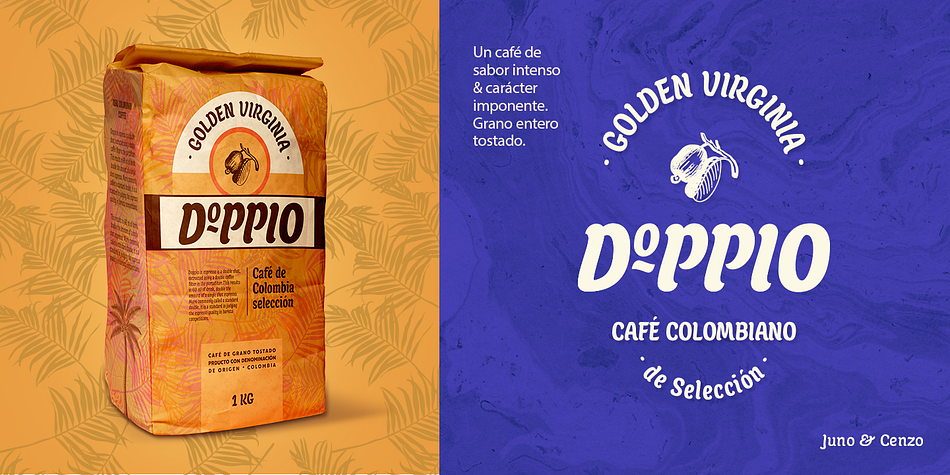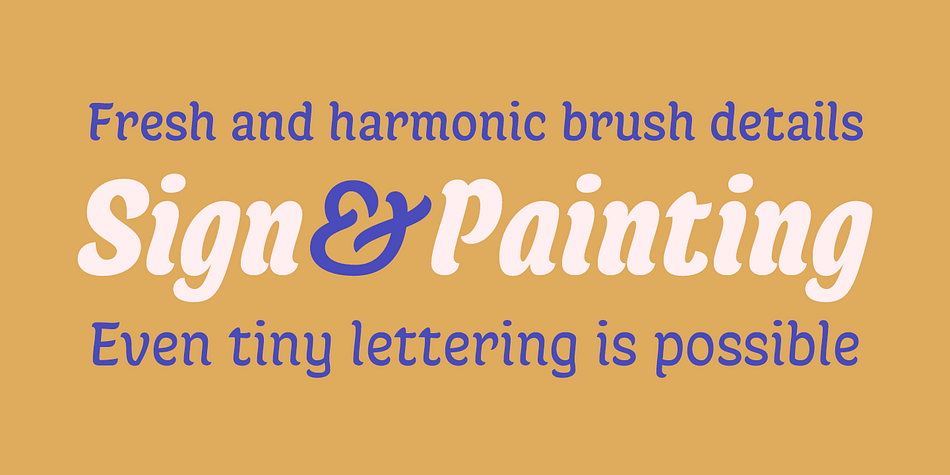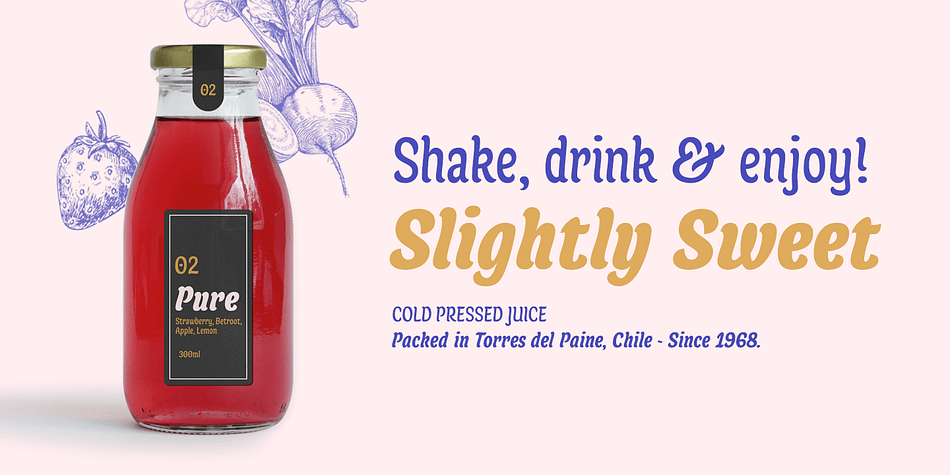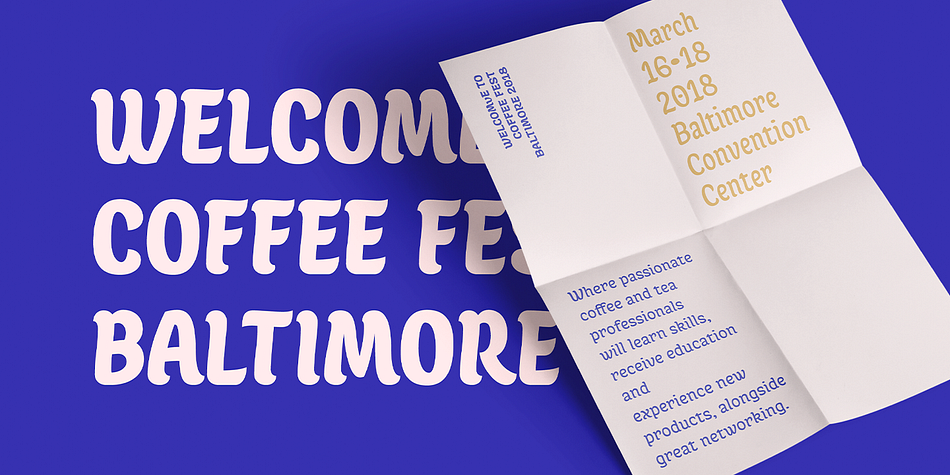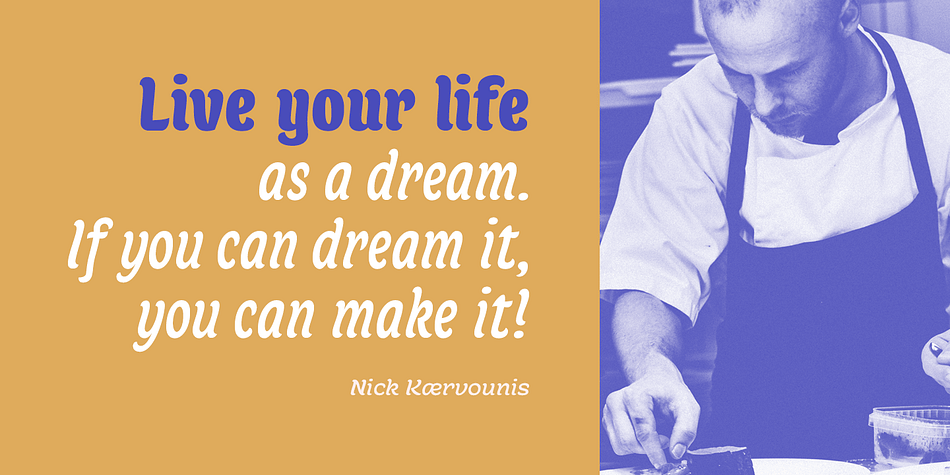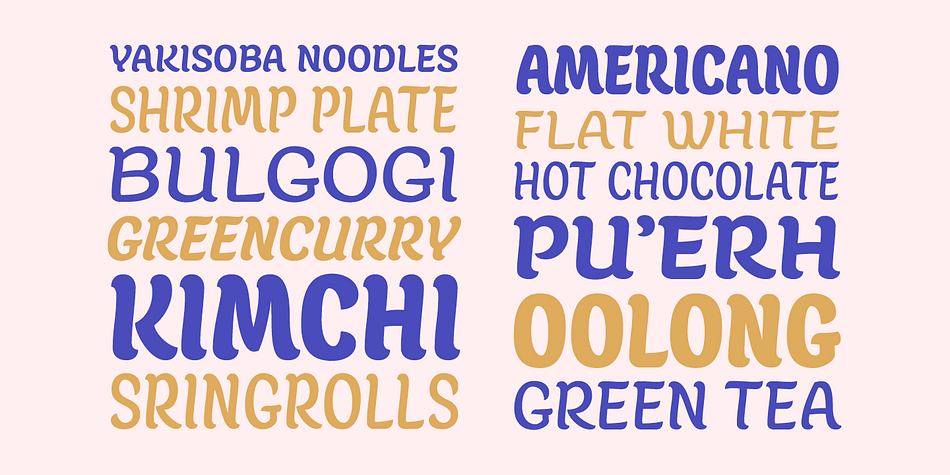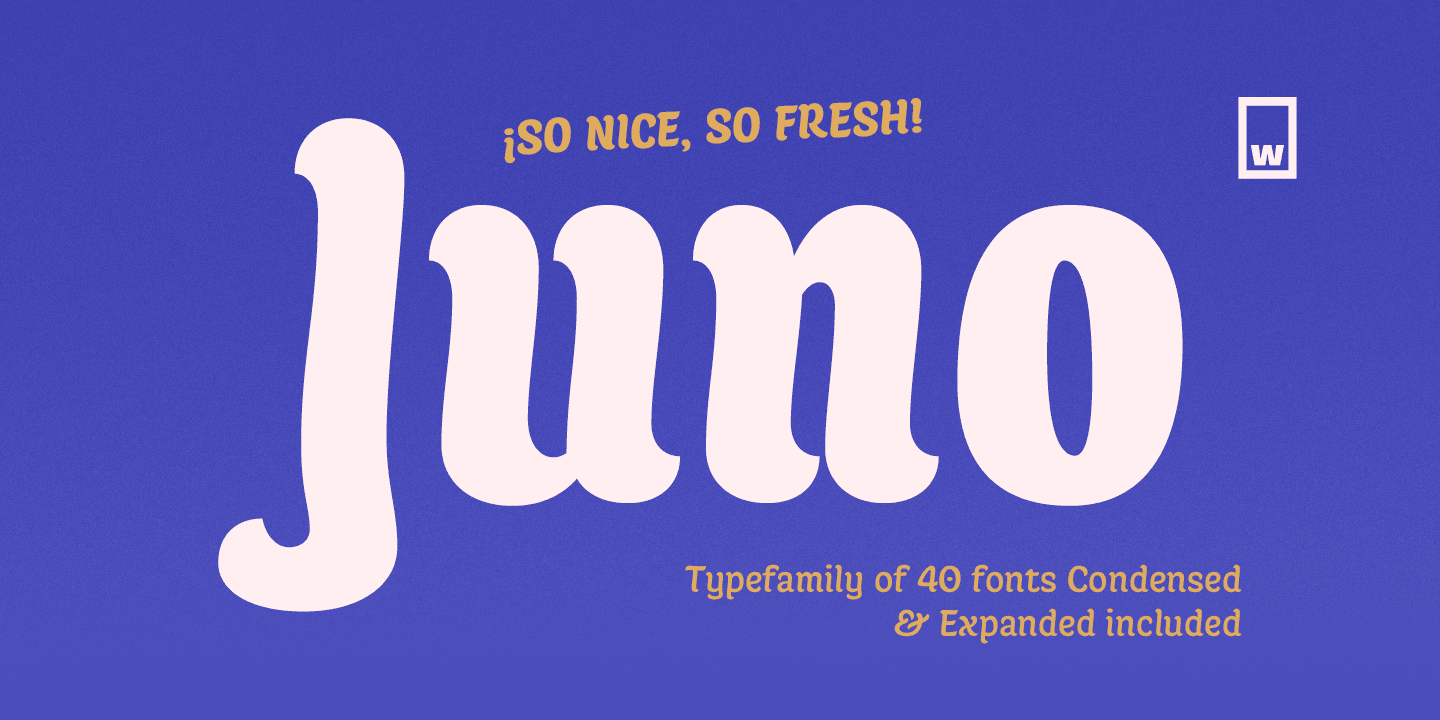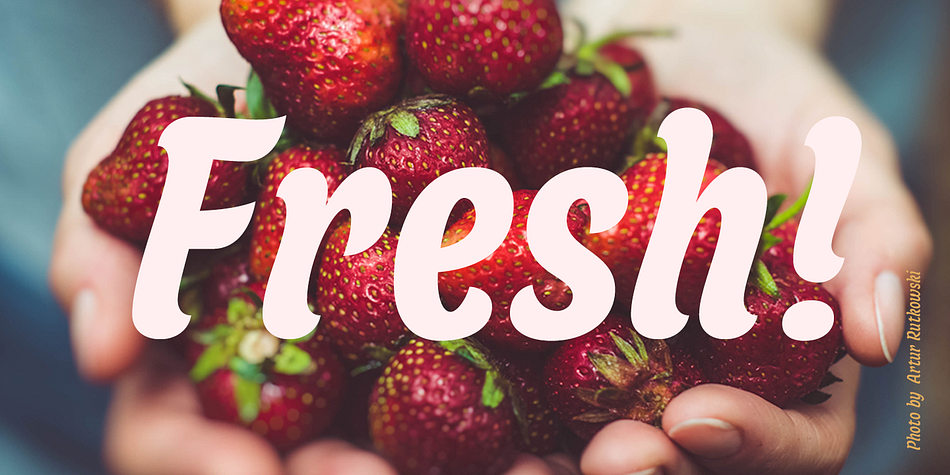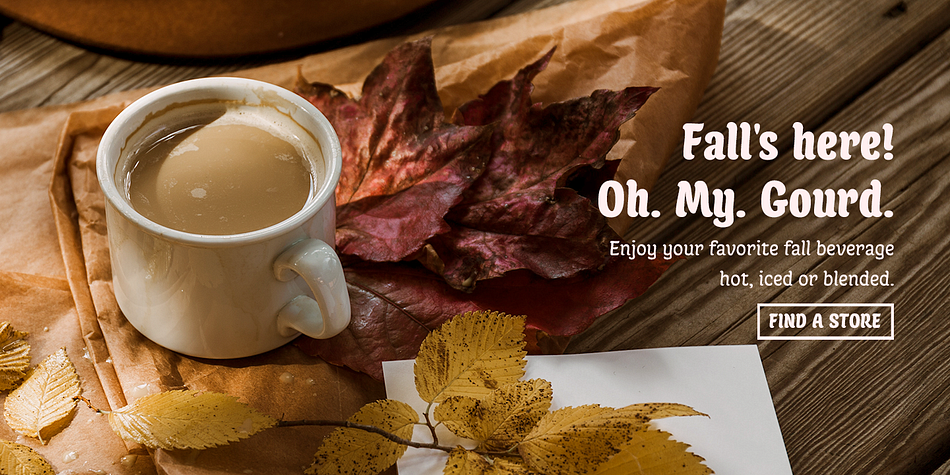
Juno
Designed by Patricio Truenos, Juno is a brush script font family. This typeface has forty styles and was published by W Type Foundry.
Juno is a soft & friendly script font for display use. Inspired by latin American vernacular signs, defined by the freshness of the freehand strokes, and mixed with the rigor of typography. Juno is well suited for packaging, headlines, advertising and any handmade feels graphic.
Designed with a wide range of options, its variables move between tow poles; regular to black & condensed to expanded, plus true italics. This 40 font family sums up to 5 weight subfamilies: Regular, Semi Condensed, Semi Expanded, Expanded. Designed with powerful opentype features, alternate characters and extended language support.
We’re proud to introduce: Juno.